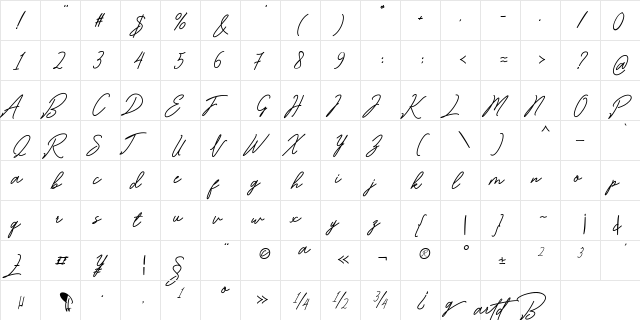
Bartdeng Regular
Design Context for Bartdeng Typeface
Bartdeng is a composed and adaptable typeface that performs quietly and consistently across a wide range of design contexts.